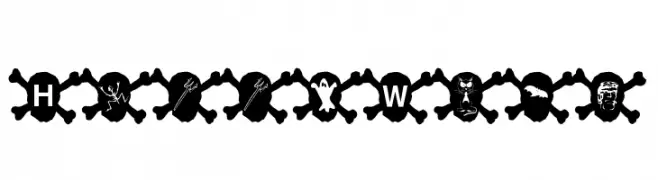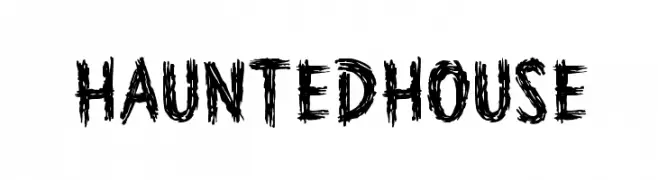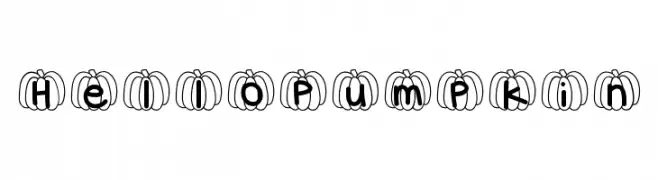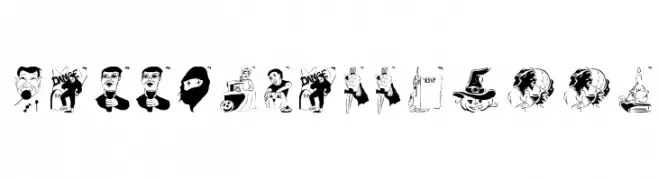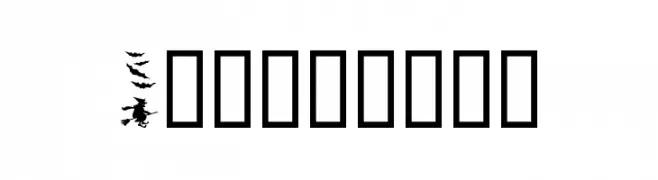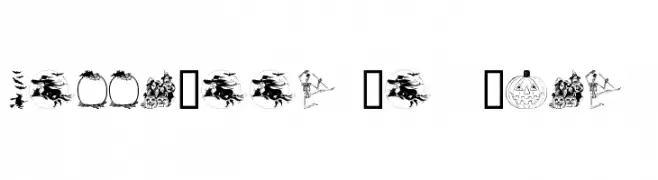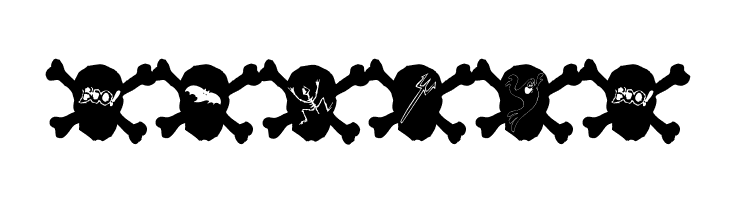
A decorative Halloween-themed font with spooky motifs and illustrations.
A spooky, jagged font with a haunted, eerie appearance.
A spooky, jagged font perfect for Halloween and horror themes.
A playful font with characters encased in pumpkin outlines, perfect for festive themes.
A decorative Halloween-themed font with playful, illustrated characters.
Halloween-themed decorative dingbat font with playful illustrations.
Halloween-themed dingbat font with spooky illustrations.